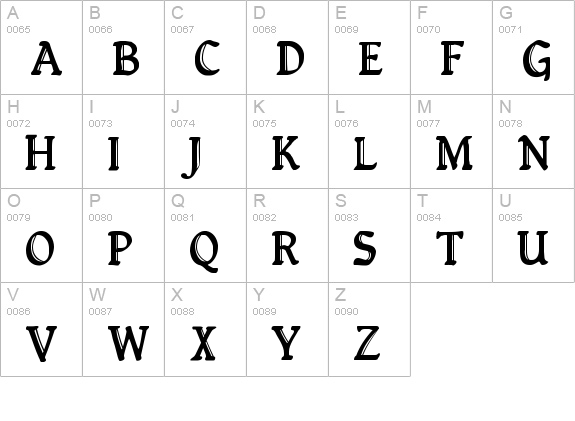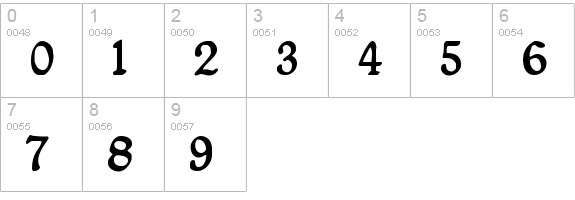
QueenEmpressCapitals Font Details
Introducing QueenEmpressCapitals font, a majestic and regal typeface that exudes elegance and sophistication. This exquisite font is perfect for adding a touch of grandeur to any project, whether it be a logo, wedding invitation, or formal document. With its ornate and intricate letterforms, QueenEmpressCapitals font commands attention and demands to be noticed. Each letter is meticulously crafted, with delicate swirls and graceful curves that reflect the grace and power of a true queen. This font is a true embodiment of royalty, making it ideal for creating a sense of luxury and exclusivity. But what truly sets QueenEmpressCapitals font apart is not just its beauty, but also its accessibility. We believe that every designer deserves the opportunity to create stunning and impactful designs, which is why we are thrilled to offer this font for free. That's right, QueenEmpressCapitals font is freely available to download at FontsMarket.com. Whether you are a professional designer or a passionate hobbyist, QueenEmpressCapitals font is here to elevate your work to the next level. With its versatility and timeless appeal, this font is sure to become a staple in your typographic arsenal. So go ahead, download QueenEmpressCapitals font today and unleash your inner royalty.